Modern serif fonts have become one of the strongest typography trends in recent years. From fashion houses and beauty brands to luxury packaging and editorial magazines, elegant serif typefaces are helping businesses create premium identities that feel timeless and sophisticated.
Unlike traditional serif fonts, modern serif typefaces combine classic elegance with contemporary proportions. Their refined contrast and clean structure allow brands to appear luxurious without looking outdated.
This balance explains why modern serif fonts have become favorites among designers, creative agencies, and premium brands around the world.
Fashion brands frequently use modern serif typography because it communicates exclusivity and confidence. High-contrast details and generous spacing create editorial aesthetics inspired by luxury magazines and premium campaigns.
For fashion branding and editorial projects, Lucentia provides timeless sophistication. Its elegant structure makes it suitable for magazine covers, luxury websites, and premium visual identities.
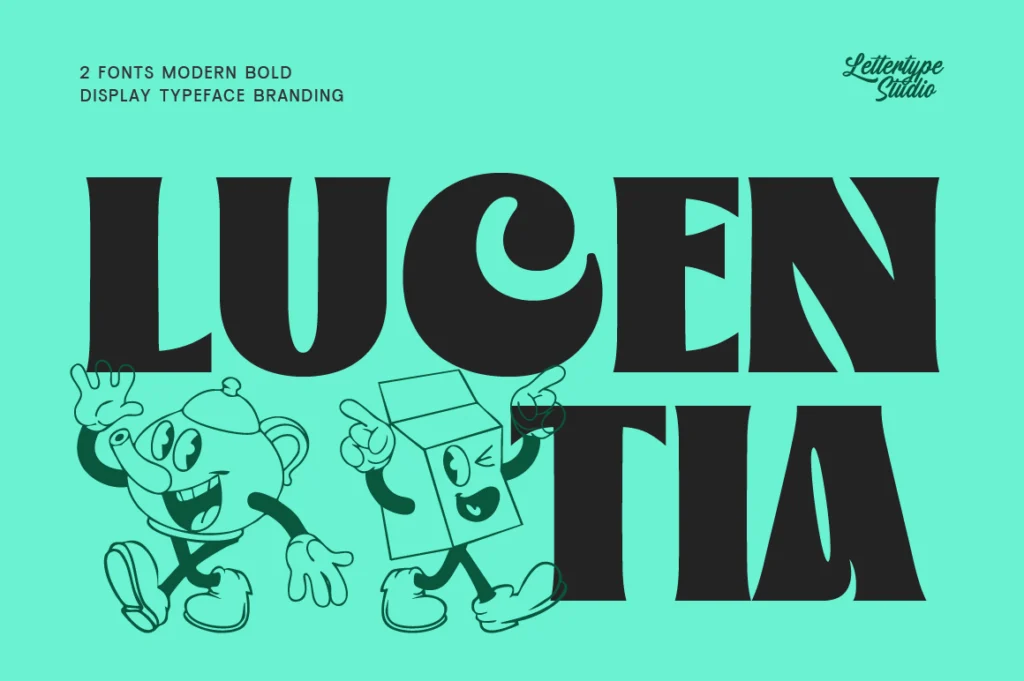
Lucentia works beautifully for:
- Fashion brands
- Editorial design
- Luxury websites
- Perfume packaging
- Premium logos
Another strong choice is Montegar. Inspired by contemporary editorial trends, Montegar combines refinement and readability. The typeface feels modern while preserving a classic atmosphere.
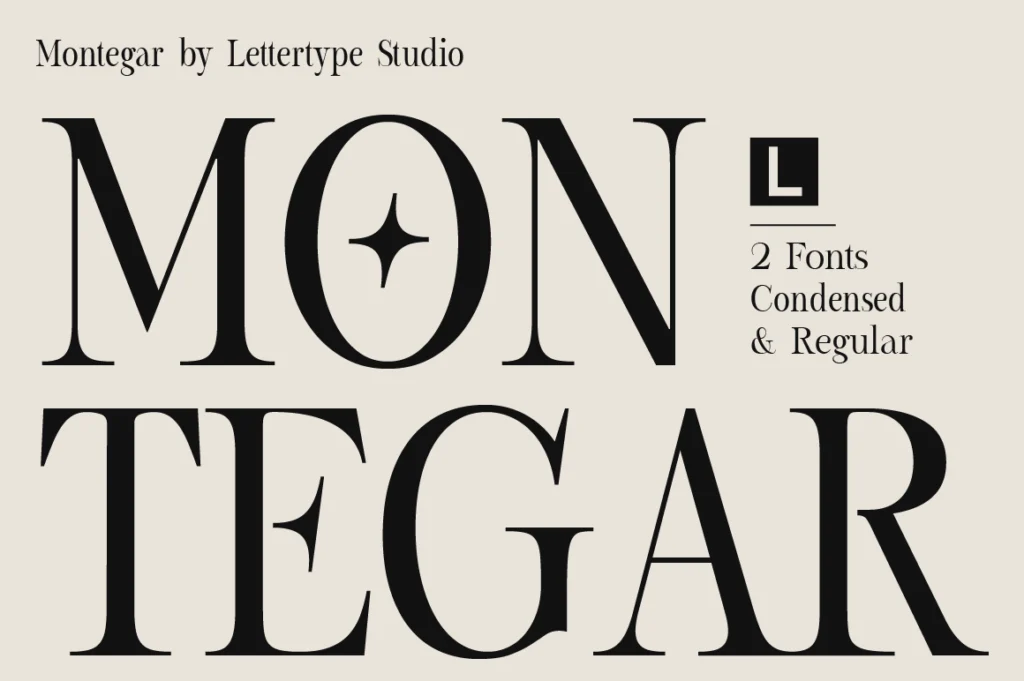
Montegar is ideal for:
- Beauty brands
- Cosmetic packaging
- Boutique labels
- Editorial campaigns
- Luxury advertising
Becaure offers versatility and balance. Its elegant letterforms make it suitable for businesses seeking a sophisticated image without becoming overly formal.
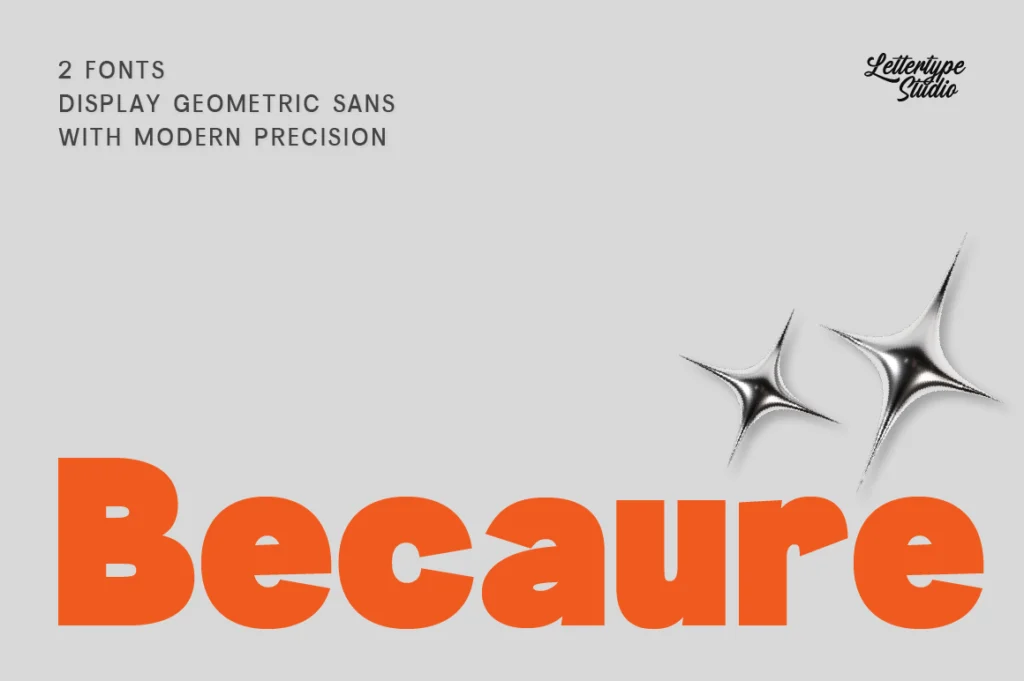
Becaure performs especially well for:
- Product packaging
- Jewelry brands
- Wedding branding
- Boutique businesses
- Premium stationery
For brands seeking stronger personality, Vogera introduces dramatic contrast and a fashionable appearance. The font creates memorable identities that stand out while maintaining elegance.
Vogera is recommended for:
- High-fashion branding
- Luxury campaigns
- Editorial headlines
- Creative studios
- Premium presentations
Brands that require a combination of sophistication and signature aesthetics can benefit from Elfariany Duo. The serif and script pairing creates feminine and luxurious identities suitable for beauty industries and boutique businesses.
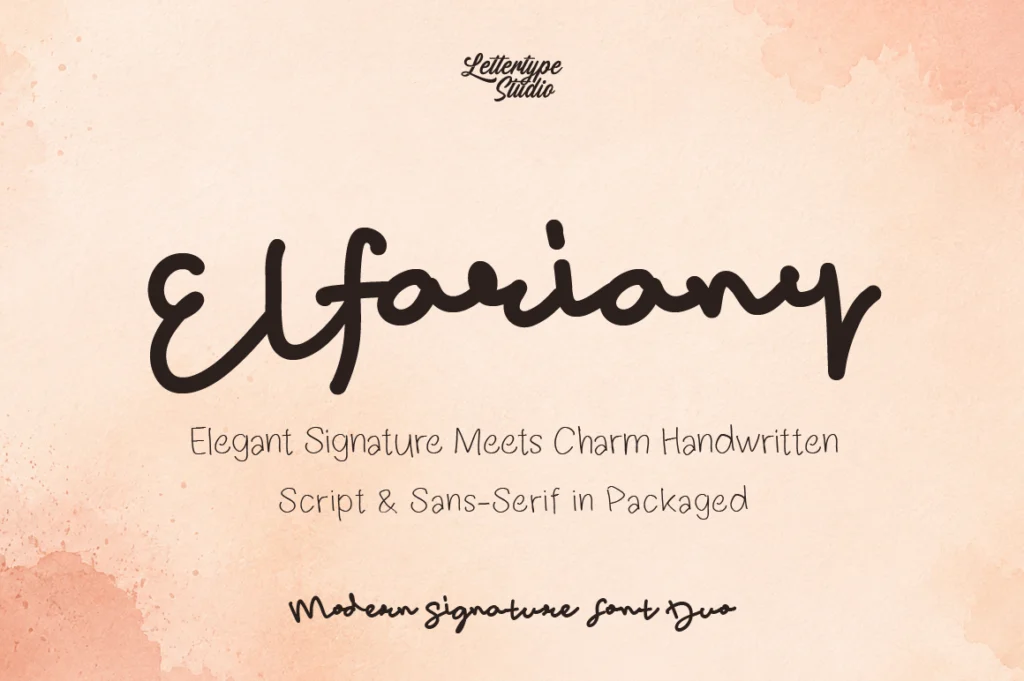
Elfariany Duo is perfect for:
- Beauty salons
- Perfume brands
- Wedding businesses
- Cosmetic boutiques
- Influencer branding
Modern serif fonts have become increasingly popular because they work across multiple platforms. From packaging and websites to social media and print materials, these typefaces provide consistency and timeless appeal.
One reason luxury brands prefer modern serif fonts is emotional perception. Serif typography naturally communicates trust, elegance, craftsmanship, and exclusivity. Customers often associate these qualities with premium products and services.
However, choosing the right serif font requires balance. Overly decorative fonts may reduce readability, while conservative fonts can feel outdated. Successful branding combines personality with functionality.
Modern serif typography is expected to remain one of the strongest design trends in 2026 and beyond. As brands seek timeless identities rather than temporary trends, elegant serif fonts continue to offer lasting value.
Conclusion
Modern serif fonts are among the best choices for luxury branding. Their timeless elegance, readability, and versatility make them ideal for fashion brands, beauty products, packaging, editorial design, and premium businesses. Fonts such as Lucentia, Montegar, Becaure, Vogera, and Elfariany Duo help brands communicate sophistication and create memorable identities.